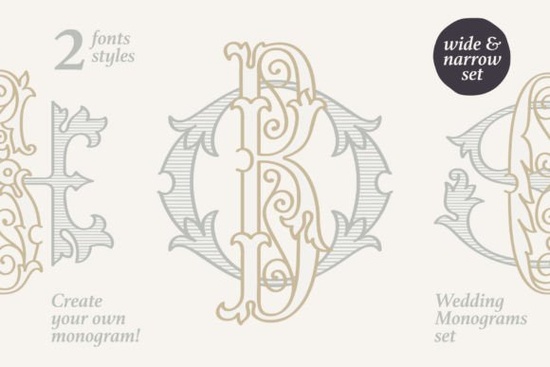
If you're designing wedding invitations, custom stationery, or keepsake gifts, the right typography can add timeless charm without overwhelming your layout. The Wedding Monograms Font offers a refined solution especially if you’re drawn to vintage aesthetics with historical roots. This elegant font family features two-letter monograms crafted in a delicate, ornamental style inspired by the 1887 publication “Course of Women’s Needlework.” It’s not just decorative it’s a thoughtful nod to 19th-century craftsmanship that still feels fresh for modern weddings.
Unlike standard script fonts, this set focuses exclusively on paired initials, making it ideal for personalizing items like napkins, place cards, signage, or even engraved jewelry mockups. Each glyph is carefully balanced so the letters intertwine gracefully, avoiding visual clutter while maintaining legibility a rare find in monogram design.
Why choose a dedicated monogram font over DIY letter pairing?
Many designers try stacking or overlapping regular fonts to mimic monograms, but the results often lack cohesion. Kerning issues, mismatched stroke weights, and inconsistent spacing can make the design feel amateurish. With the Wedding Monograms Font, every combination from AB to ZY has been hand-drawn as a single unit. This ensures harmony between characters and saves you time in post-production.
For print-on-demand sellers, this consistency matters. Customers expect polished, professional-looking products, especially for milestone events like weddings. Using a purpose-built monogram font reduces the risk of awkward spacing or uneven alignment across hundreds of product variations.
How does it compare to other decorative wedding fonts?
While fonts like Star Glory lean into dramatic flourishes and maximalist detailing, the Wedding Monograms Font takes a more restrained approach. Its beauty lies in subtlety: thin hairlines, gentle curves, and open counters that echo antique embroidery patterns. It pairs beautifully with clean sans-serifs (like Montserrat or Lora) for contrast, letting the monogram stand out as a focal point without competing with body text.
What kinds of projects work best with this font?
This font shines in applications where personalization and elegance are key. Consider these real-world uses:
- Custom wedding invitations – Add the couple’s initials to envelope liners or RSVP cards.
- Bridal party gifts – Design tote bags, robes, or clutches with monogrammed initials.
- Event signage – Welcome signs, seating charts, or photo booth backdrops featuring guest or couple monograms.
- Digital templates – Sell editable Canva or Photoshop templates on Etsy using this font as a premium feature.
- Embroidery digitizing – Convert the vector outlines into stitch files for physical keepsakes.
Because the design references historical needlework, it resonates particularly well with rustic, vintage, or heirloom-style weddings but don’t limit yourself. Paired with minimalist layouts or modern color palettes (think sage green or terracotta instead of ivory), it adapts surprisingly well to contemporary themes.
Tips for using monogram fonts effectively
Monograms carry cultural and stylistic conventions. Traditionally, for married couples, the bride’s initial appears on the left, the groom’s on the right, with the shared surname initial centered and enlarged but since this font only includes two-letter combinations, it’s perfect for first-name pairings (e.g., “Alex & Taylor”) or same-initial duos.
Always test readability at small sizes. While the fine details look exquisite on a large invitation, they may disappear on a 1-inch favor tag. If scaling down, consider slightly increasing stroke weight in your design software or choosing bolder companion fonts for supporting text.
And remember: less is more. One well-placed monogram often has more impact than multiple scattered throughout a design. Let it breathe with ample negative space.
Looking for similar options? The Wedding Monograms collection on Creative Fabrica includes complementary fonts and graphics that share the same historical inspiration, making it easy to build a cohesive suite of wedding assets.
Before you start designing, check this quick list:
- ✅ Test print or mockup the monogram at actual size details matter.
- ✅ Pair with a simple, readable secondary font for balance.
- ✅ Consider cultural norms around initial order if designing for clients.